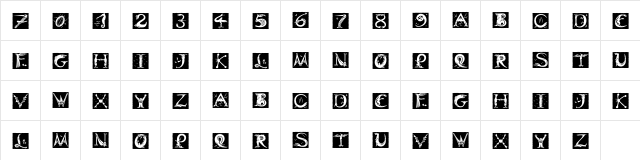
DinitialNeg ITC Regular Font Preview
DinitialNeg ITC Regular
DinitialNeg ITC Regular Font Details
Design Context for DinitialNeg ITC Typeface
DinitialNeg ITC is a composed and adaptable typeface that performs quietly and consistently across a wide range of design contexts.